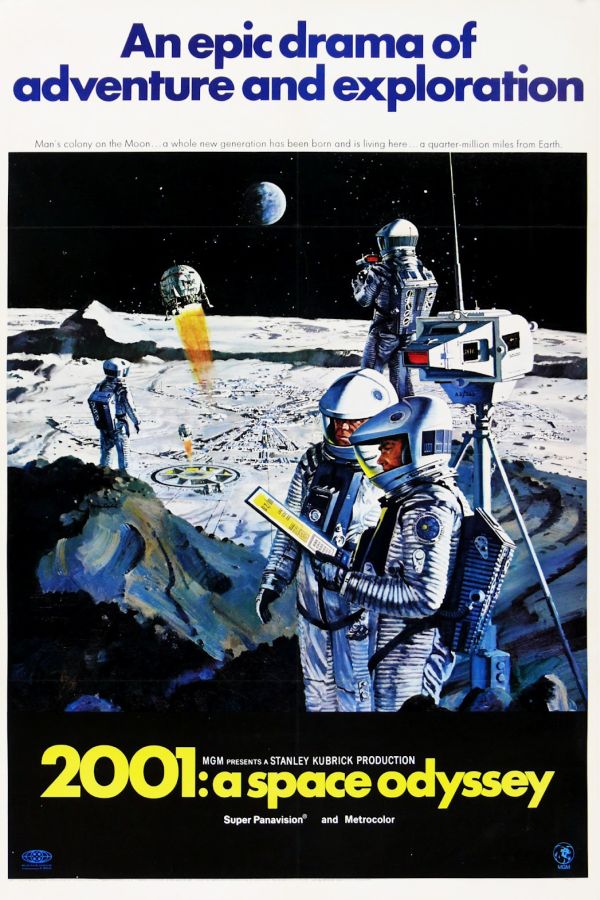
2001 A Space Odyssey Font
Fonts in Use2001: A Space Odyssey is a 1968 science fiction film directed by Stanley Kubrick, which follows a voyage to Jupiter with the sentient computer HAL after the discovery of a mysterious black monolith affecting human evolution.
The film's poster title is likely set in Futura Bold font, with adjusted letter spacing. You can find additional information on the Futura typeface here.